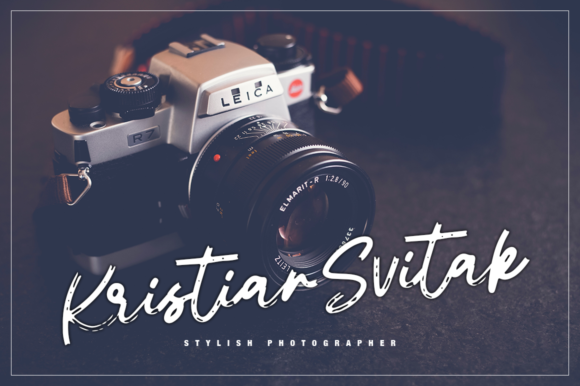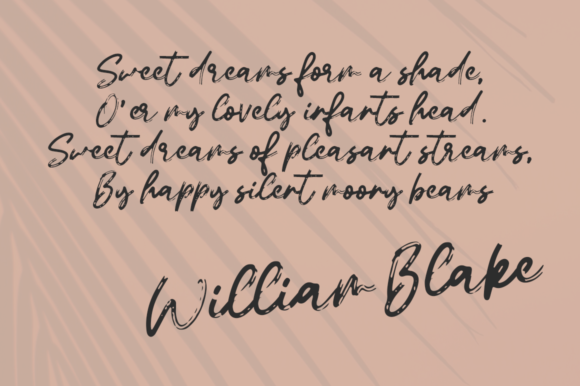
HomeScript FontsMemphis Font Script Fonts Memphis Font FacebookXPinterestWhatsApp Memphis Font Poster 2 Memphis Font Poster 3 Memphis Font Poster 4 Memphis Font Poster 5 Memphis Font Poster 6 About Memphis Font Memphis is an authentic and cool handwritten font with a smart feel. Get inspired by its unique style! DOWNLOAD NOW People also explored Barb and Cally Font Paradise Farmhouse Font Romantica Story Font Bellingham Font Allim Font Monasha Font Monologue Font Beselermoon Font Gingerline 351 0 TagsMemphis Font Previous articleHigh Dreaming FontNext articleRed Peppers Font LEAVE A REPLY Cancel reply Comment: Please enter your comment! Name:* Please enter your name here Email:* You have entered an incorrect email address! Please enter your email address here Website: Save my name, email, and website in this browser for the next time I comment. Personal Use Free Sweet Beautiful Personal Use Free Read more about this font Zeshane Personal Use Free Read more about this font Arabella Script Personal Use Free Read more about this font Concrete Wall Personal Use Free Read more about this font BLOG Best Fonts for YouTube Videos: Make Your Thumbnails Stand Out Best Fonts for YouTube Videos: Make Your Thumbnails Stand Out Choosing the right font can make a massive difference in how your YouTube videos perform.... Elegant Wedding Invitation Fonts – Handwritten & Script Fonts Best Fonts for T-Shirt Design – Top 2025 Picks How to Install and Use Fonts on Windows, macOS, and Web Projects